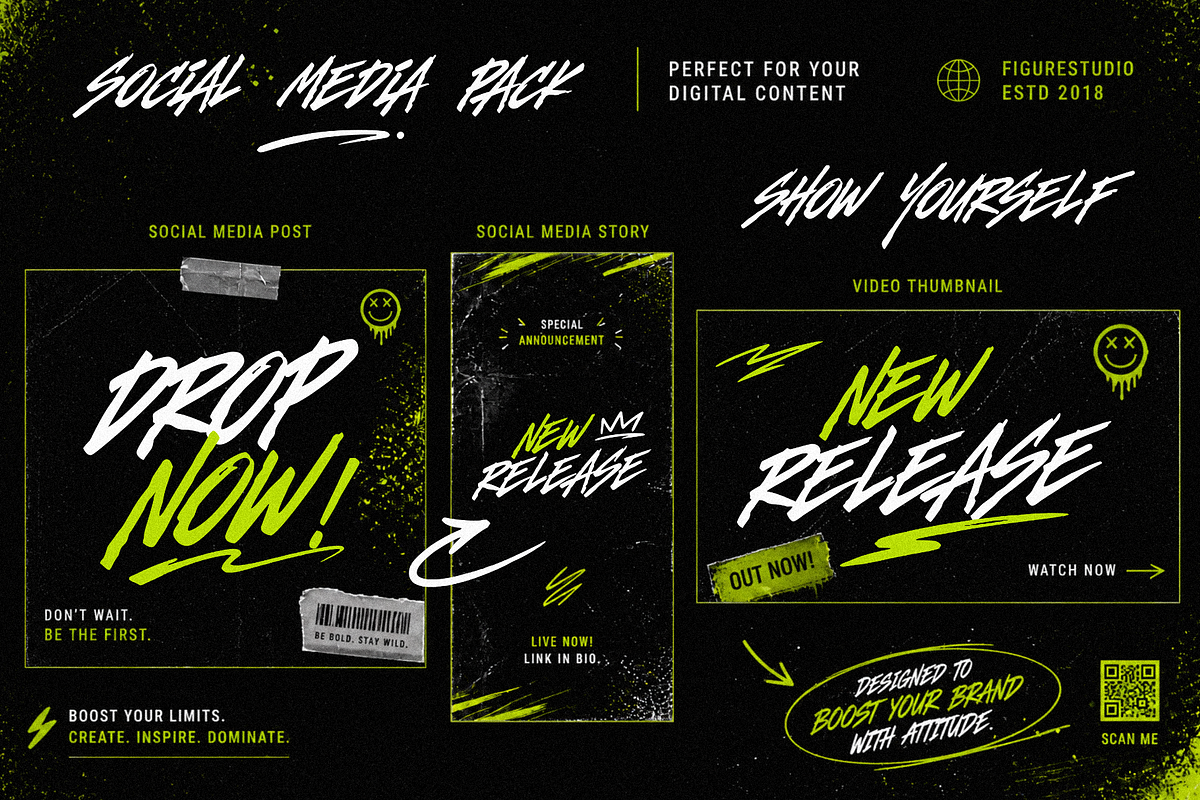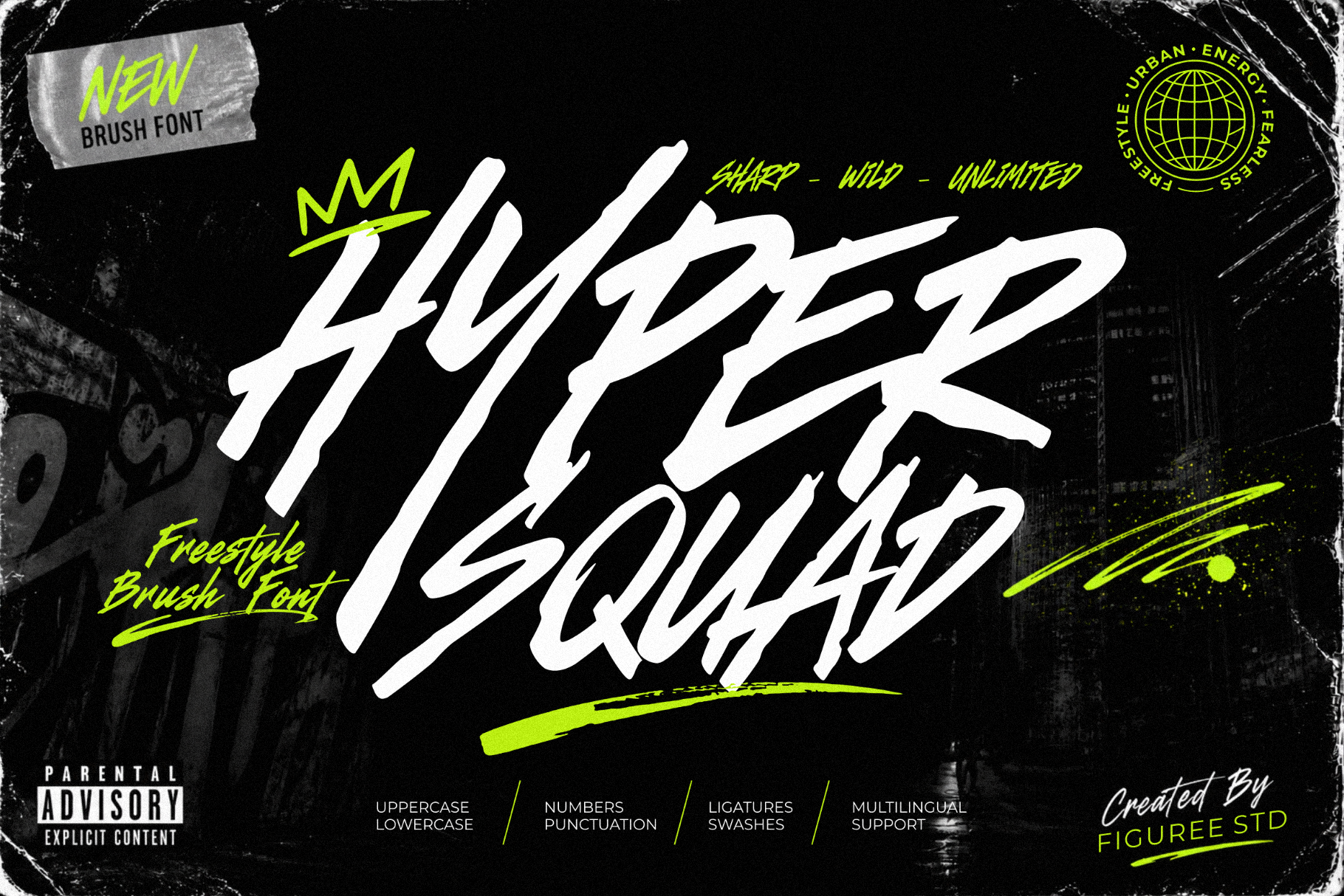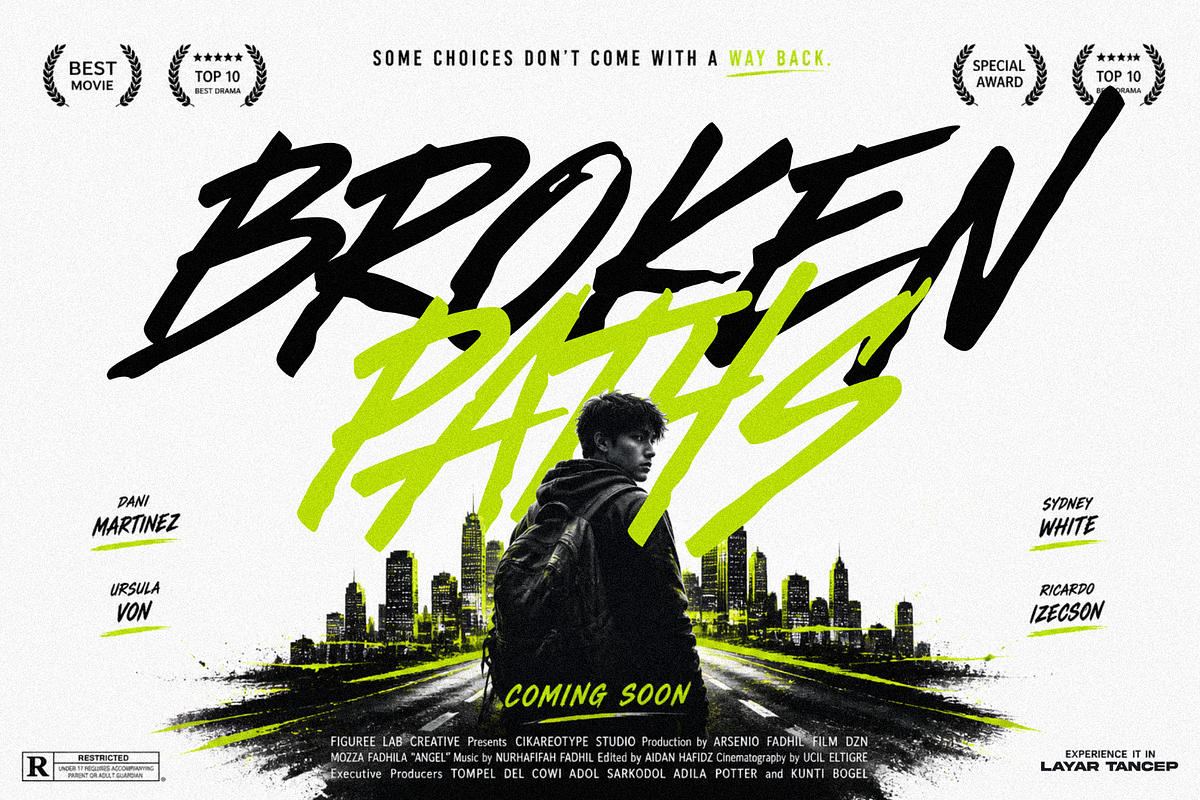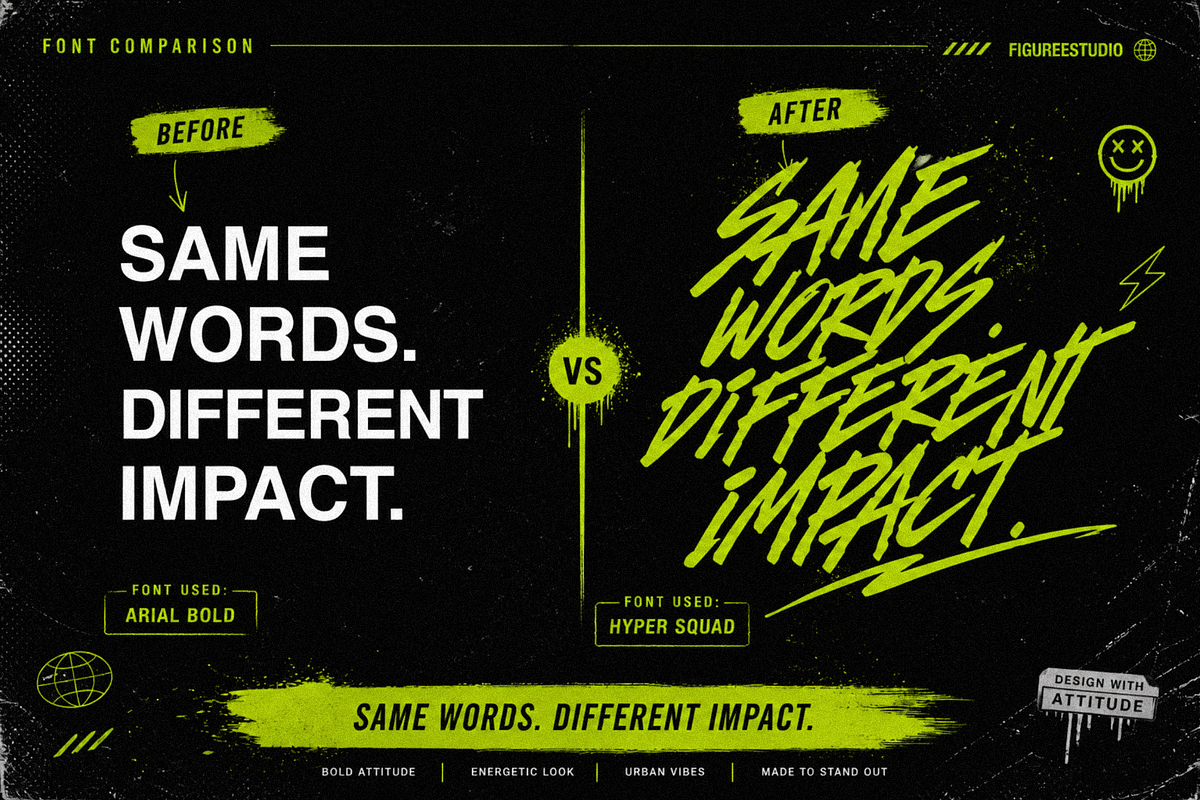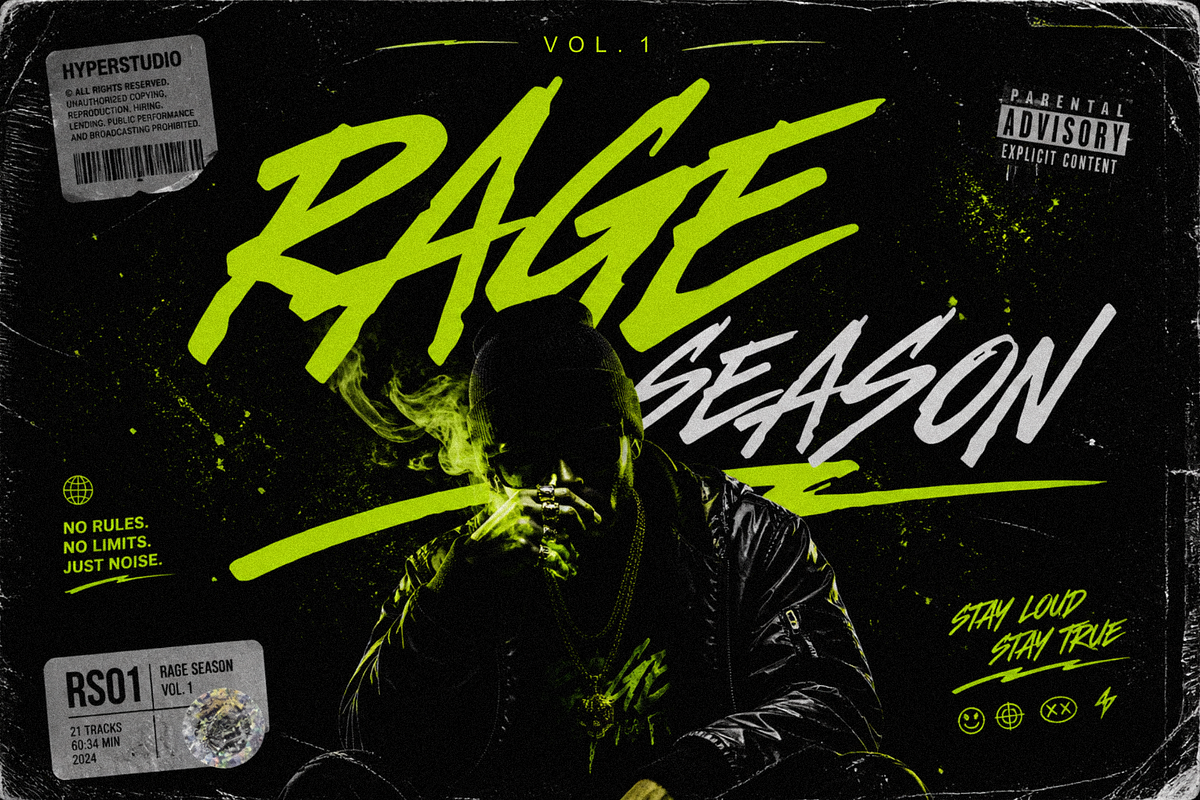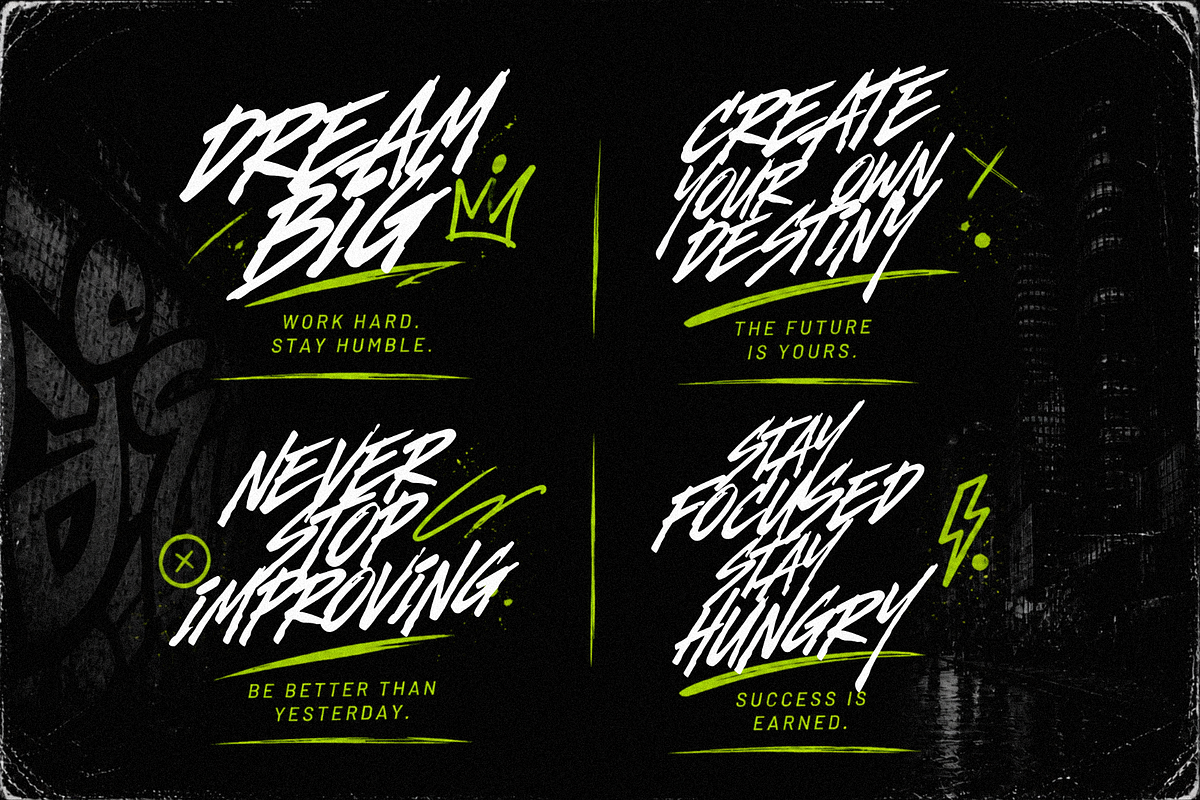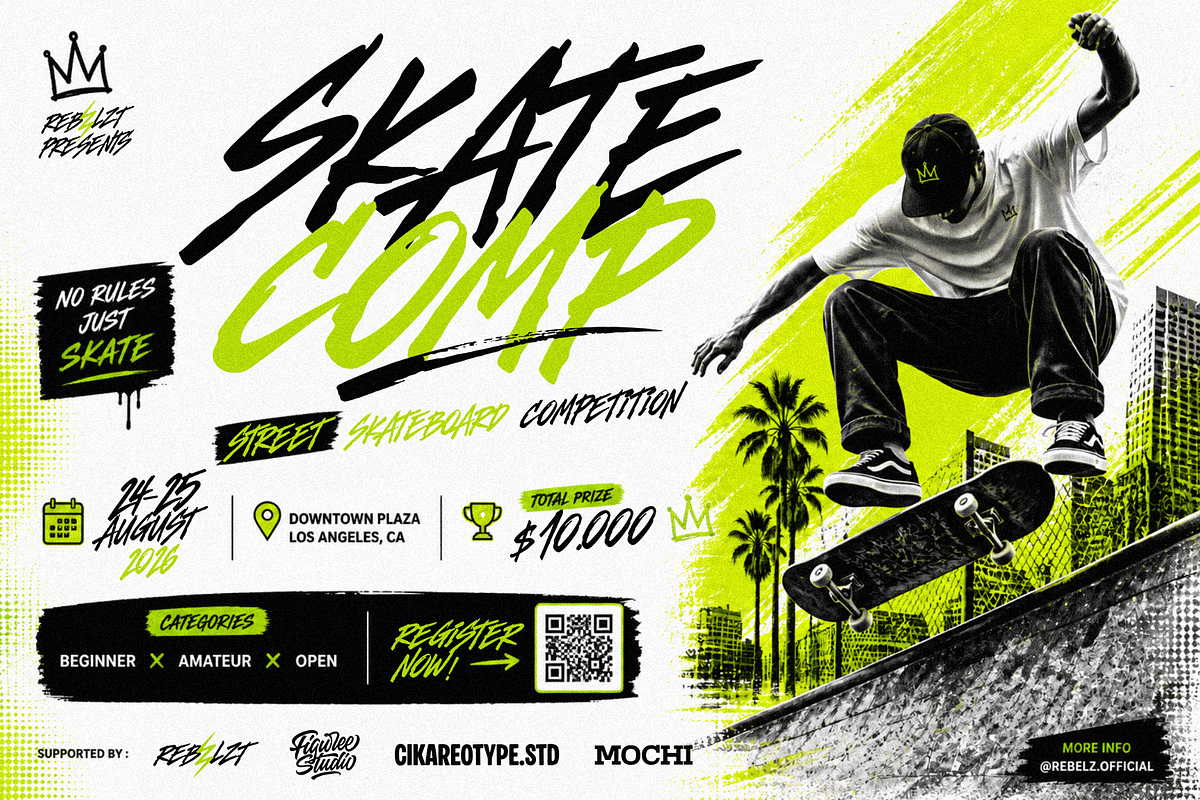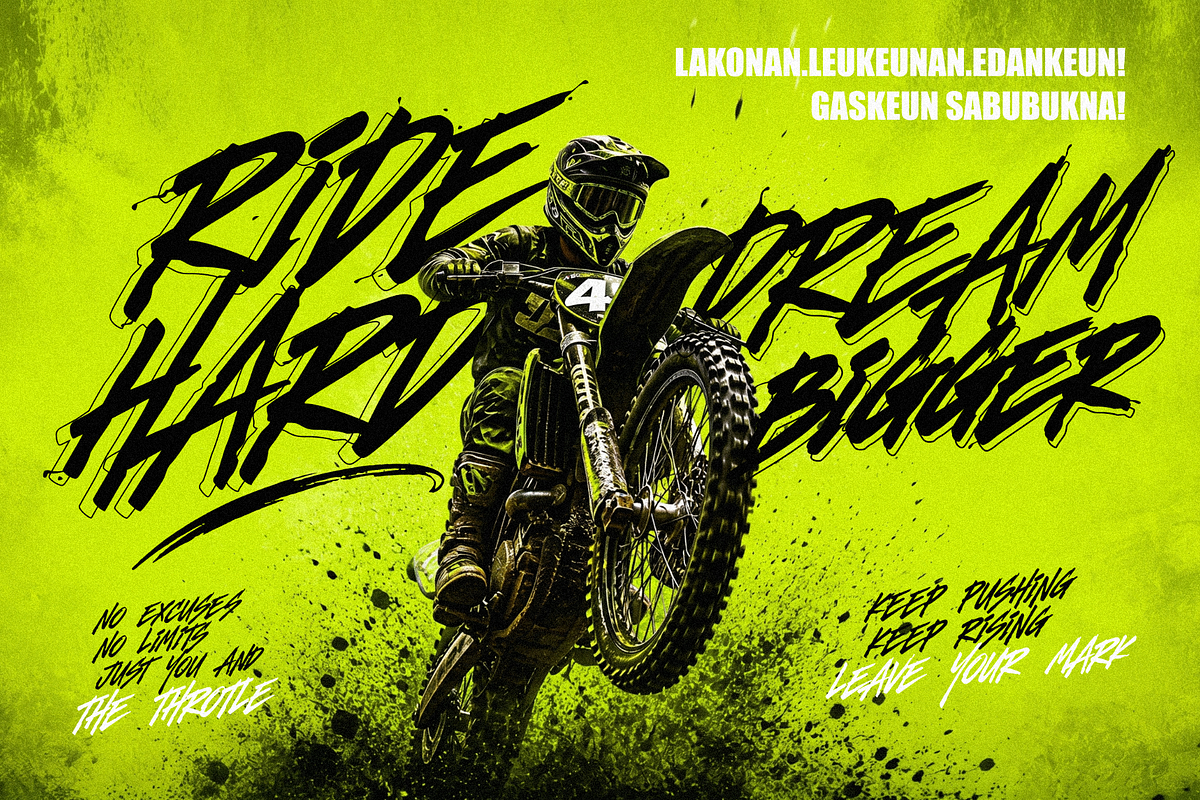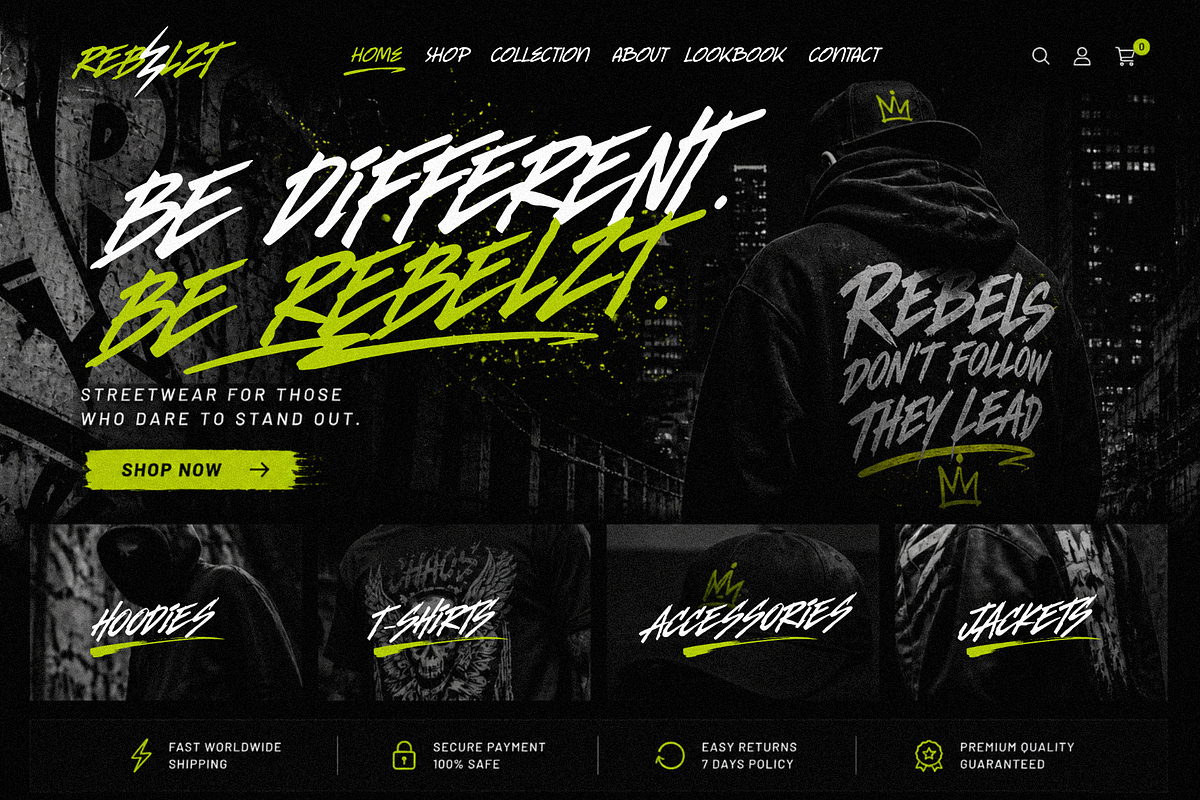
Hyper Squad - Freestyle Brush Font
Hyper Squad – Freestyle Brush Font is designed to bring natural movement and expressive energy into your typography. Inspired by hand-painted strokes, this font delivers an organic brush style that feels spontaneous and full of character. It works well for projects that require a strong visual voice, such as posters, headlines, social media graphics, and creative layouts.
With both uppercase and lowercase characters, Hyper Squad provides flexibility for building dynamic compositions. The variation between letters creates a natural rhythm, making your text feel less rigid and more alive. Combined with ligatures and extra swash elements, you can easily enhance your typography with fluid connections and extended strokes that add personality without extra effort.
This font is suitable for a wide range of creative needs. Whether you are designing bold titles, promotional visuals, video thumbnails, or digital content, Hyper Squad helps you create lettering that stands out clearly. Its brush texture gives a handcrafted impression while maintaining readability across different sizes and formats.
Uppercase & Lowercase Characters – flexible text composition with natural variation.
Ligatures Included – smoother letter connections for more natural flow.
Extra Swash Version – extended strokes for decorative lettering.
Freestyle Brush Style – expressive, hand-drawn appearance.
Support Multilingual – suitable for international use.
Versatile Application – works for posters, titles, thumbnails, and digital content.
Why Designers Love It
Designers use Hyper Squad because it simplifies the process of creating expressive typography. The built-in ligatures reduce the need for manual adjustments, while the swash version adds variation without requiring additional tools. This allows faster workflow when creating bold compositions.
The balance between raw brush texture and readability makes it practical across different design contexts. It can function as a focal point in layouts or complement other elements without losing clarity. Multilingual support also allows consistent usage across different languages, making it adaptable for broader audiences.
Another reason this font is widely used is its ability to create movement. The irregular strokes and natural flow help guide the viewer’s eye, making text feel active rather than static. This is especially useful for designs that rely on strong visual hierarchy and emphasis.
If your project requires expressive lettering with natural flow and strong visual presence, Hyper Squad – Freestyle Brush Font provides the tools to build it efficiently. With its combination of ligatures, swashes, and multilingual support, this font helps you create dynamic compositions that communicate clearly and effectively across different media.